10 Graffiti Fonts for Eye-Catching Visual Art
Discover 10 top graffiti fonts for urban style and visual impact. These versatile, free options are ideal for designers creating bold, expressive art in print and digital media.
Now, with the improvement of people's aesthetic and cultural awareness, graffiti fonts are increasingly being used by people, both in design and in daily writing. Therefore, graffiti fonts have become a powerful tool for creating bold urban style visual art. These fonts capture the rebellious spirit and creativity of street art, and can transform ordinary text into eye-catching visual expressions. Whether you are designing for print, digital media or branding, the right graffiti font can instantly enhance the beauty and connotation of your project. However, faced with a wide range of font choices, it is still a challenge to find the perfect graffiti font that matches your artistic vision.
This article will introduce you to 10 outstanding fonts, and take a deep look at their unique style, versatility, and how to find them legally on platforms such as Google Fonts and Adobe Fonts to enhance the beauty of your creative projects.
The Top 10 Graffiti Fonts for 2025
1. Da’Role
Da’Role Graffiti Font combines smooth script forms with a bold street art style. This versatile font can add more urban flavor to various projects, from branding to editorial design. Its balanced blend of readability and graffiti aesthetic makes it suitable for digital and print applications. It is currently available on major regular font platforms, and it is also a common font of choice fordesignerswho pursue strong visual impact.
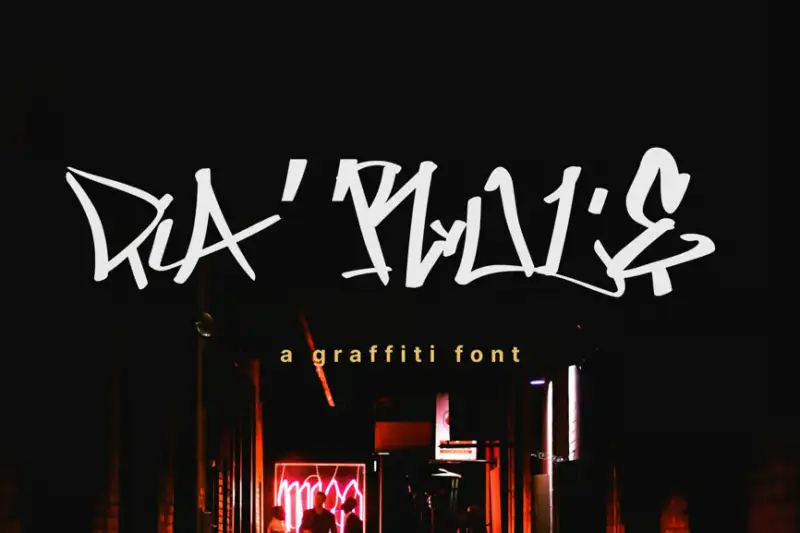
2. The Overcook
The most notable feature of this graffiti font is that it is bold and expressive, so many people like to use it. Because it is quite special, it has exaggerated shapes and irregular baselines, creating a sense of spontaneity and vitality. So it is very suitable for designs that need to be eye-catching, especially in the art and fashion industries, but if you want to use it, you still need to download it legally on a reliable font website.
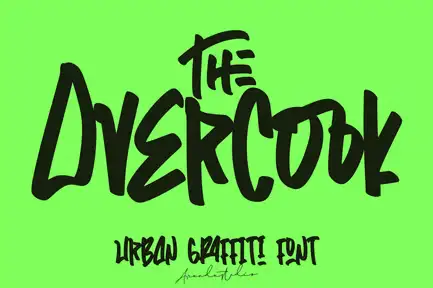
3. BOZART
BOZART is a font that combines graffiti style with cartoon-like fun, so it is quite special. In particular, its peculiar fonts and irregular shapes add a touch of personality and whimsy to the design. It is very suitable for design projects targeting young audiences, or for brands that want to inject fun into their visual image. If you use it, you also need to find and download it on a reliable font platform.
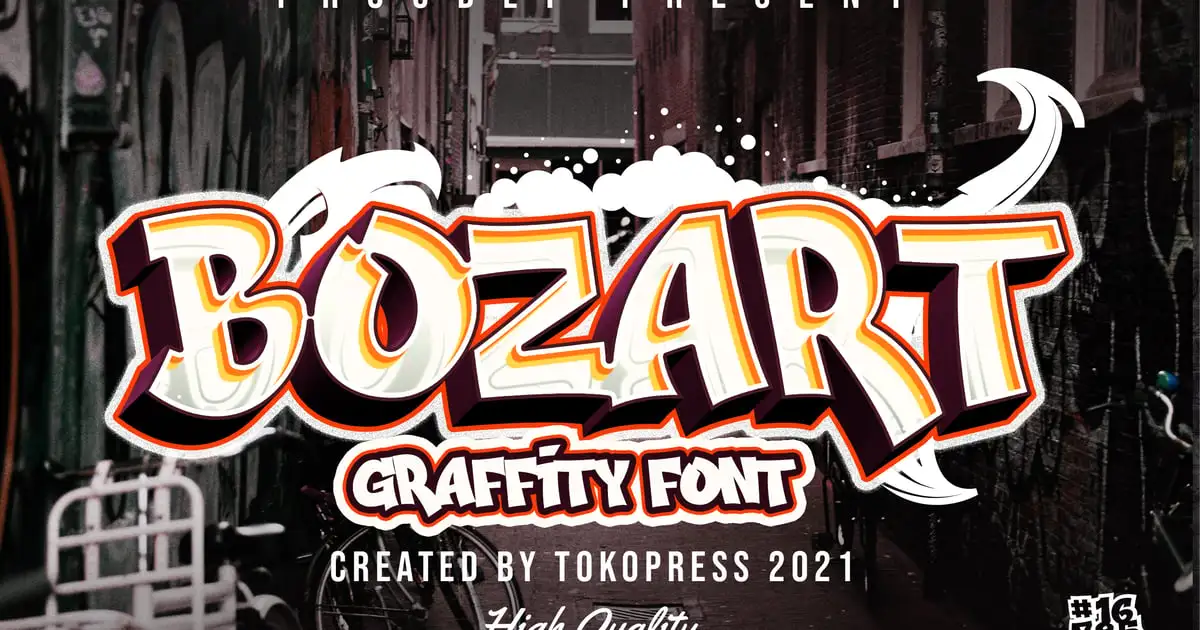
4. Badtryme
Badtryme is a font with brush-like strokes and a variety of dynamic forms. You can see the raw and expressive nature of graffiti art from it. This font conveys a sense of rebellion and creativity, which is very suitable for designers to do some special designs. At present, it is a legal font and is favored by designers who pursue urban authenticity.
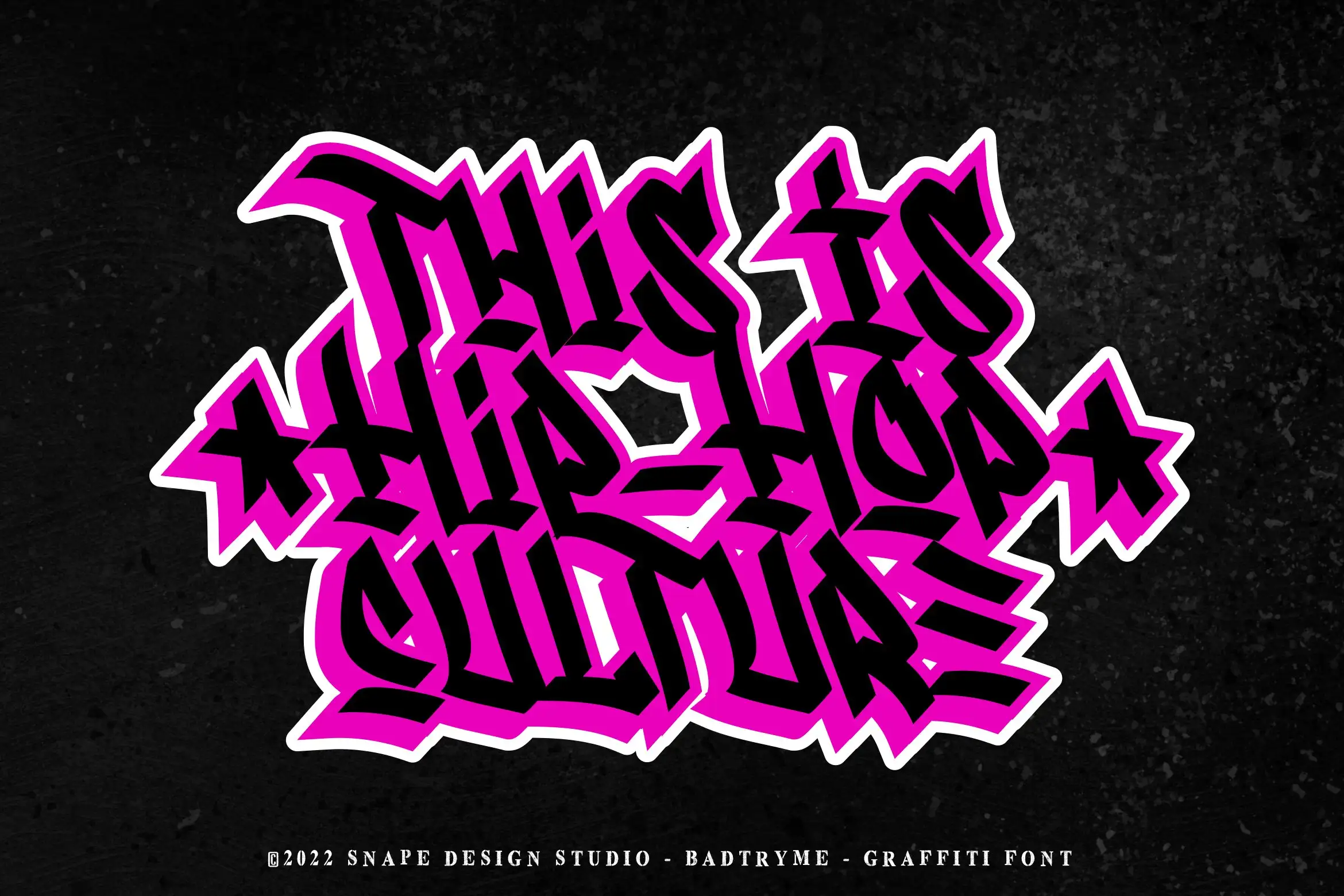
5. Districtside
Districtside has a fast and flowing graffiti style, using handwriting-like forms and irregular baselines. The design creates a sense of spontaneity and movement, perfect for projects that want to capture the essence of street culture. For designers seeking urban expression, it is already available on the official font platform, so you'd better download this graffiti font from the official platform.
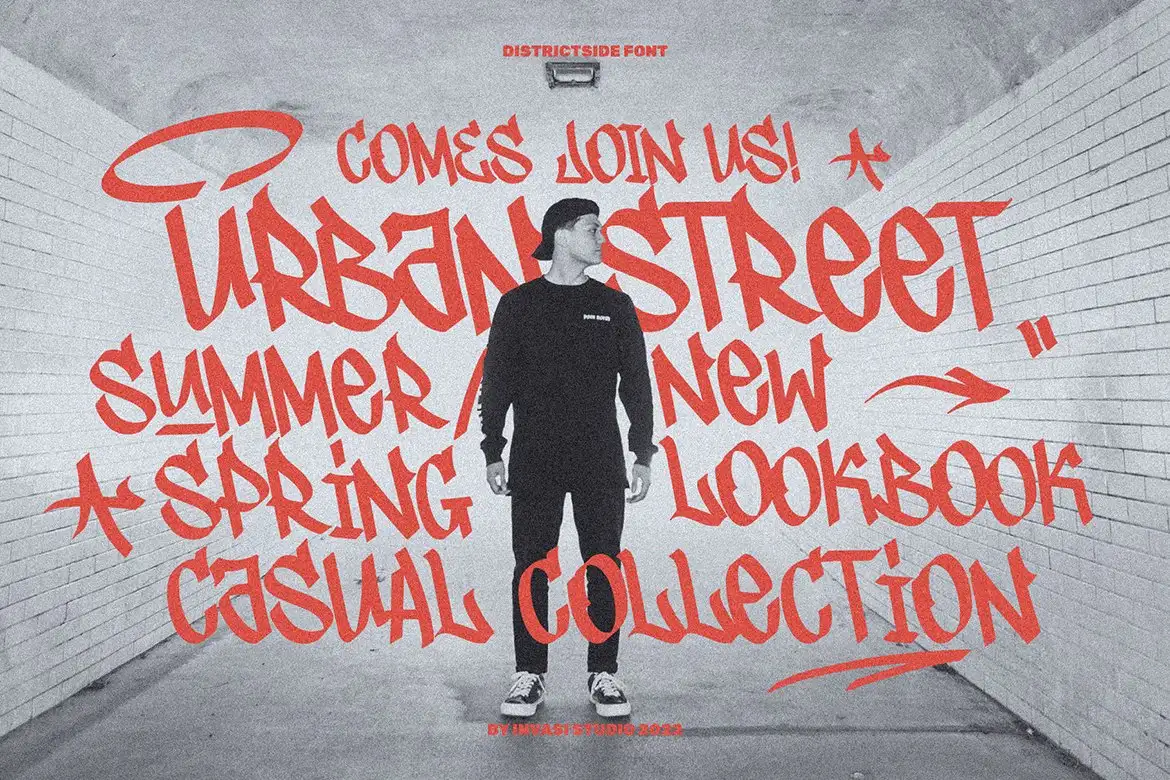
6. Bombsky
Bombsky'sgraffiti fonts free is characterized by its rough fonts and sharp edges, which brings a bold and shocking interpretation to graffiti fonts. This sans-serif graffiti font has a strong visual impact and is very suitable for street fashion and urban style brand promotion. At present, it has provided legal download channels, and this font is very attractive to users.
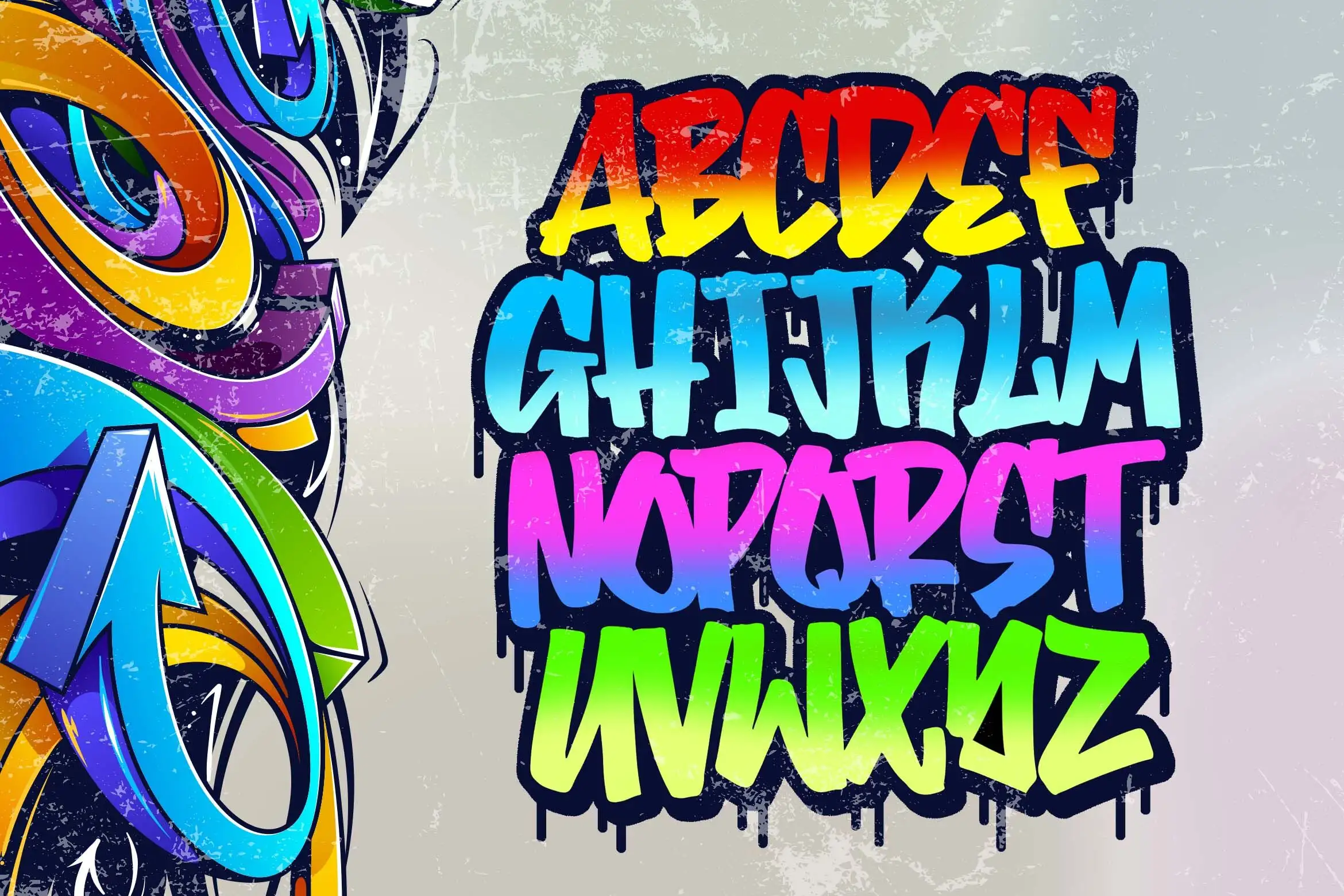
Image by courtesy of Font Bundles
7. Grapiteah
Grapiteah is a font that perfectly blends graffiti aesthetics with an elegant flair. It has well-balanced letterforms and subtle decorative elements, making it perfect for display and logo design. Now available on the trusted font platform, it’s ideal for projects that need a sophisticated, urban feel.
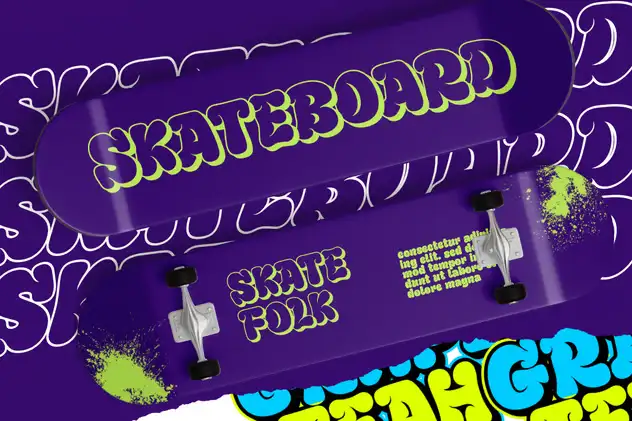
Image by courtesy of Envato
8. Mopkings
Mopkings is a modern font that brings a fresh twist to graffiti fonts with its clean lines and varied geometric elements. This font creates a modern, urban feel, so it appeals to a young, design-savvy audience while still maintaining street-style credibility. You can get it legally from reliable font sites, and it’s commercially acceptable.
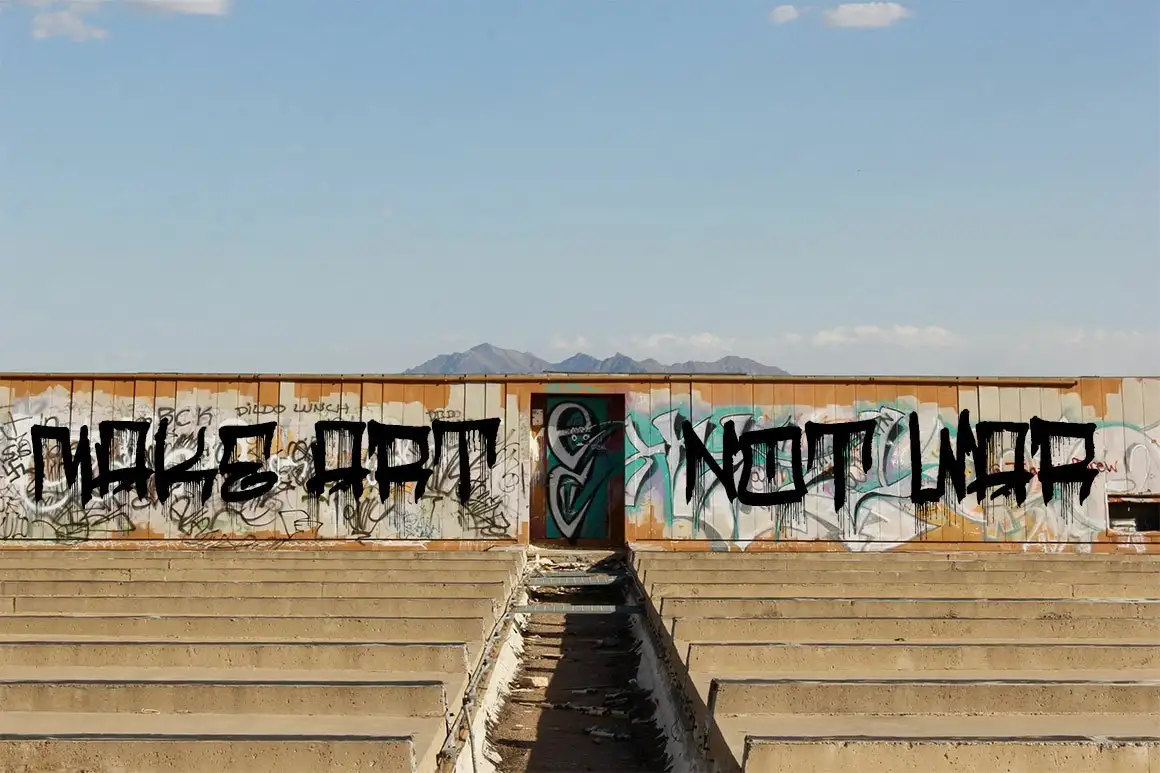
9. Maxtield Graffiti Font
Maxtield is a unique ladder. Its irregular shape and unconventional font bring a quirky and interesting interpretation to the graffiti style. If you add this font to your design, it can help you add personality and uniqueness, making it perfect for projects that want to stand out. At present, it can also be used normally on regular platforms, especially in the entertainment and party industries.